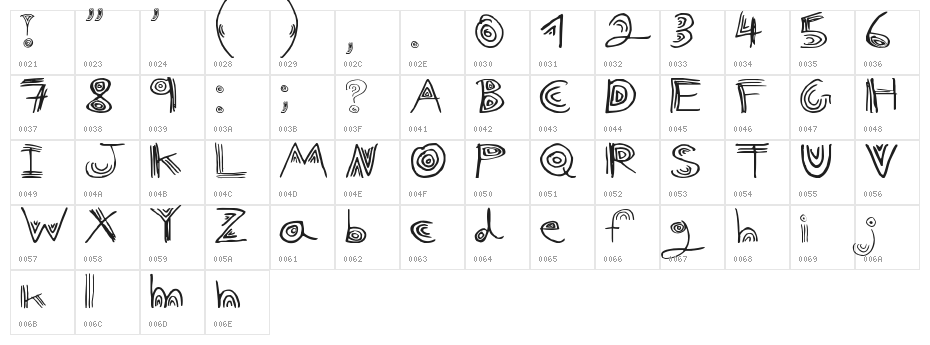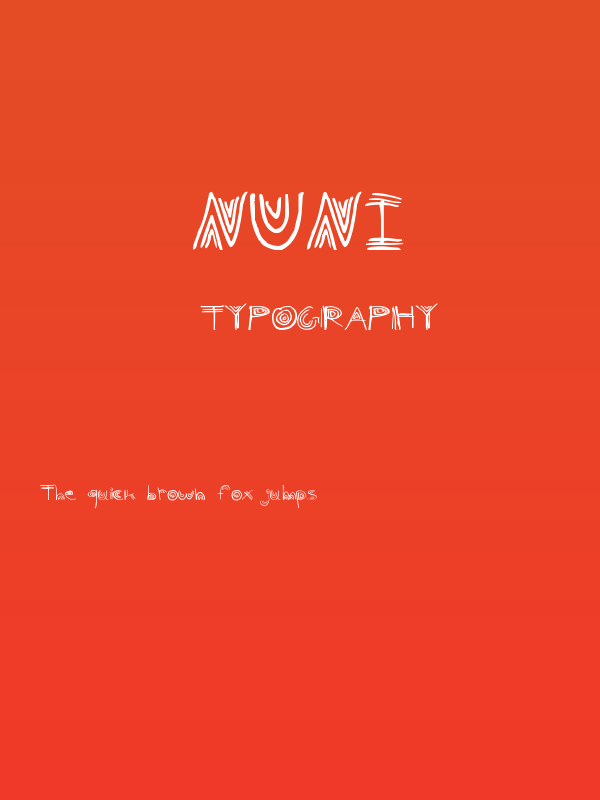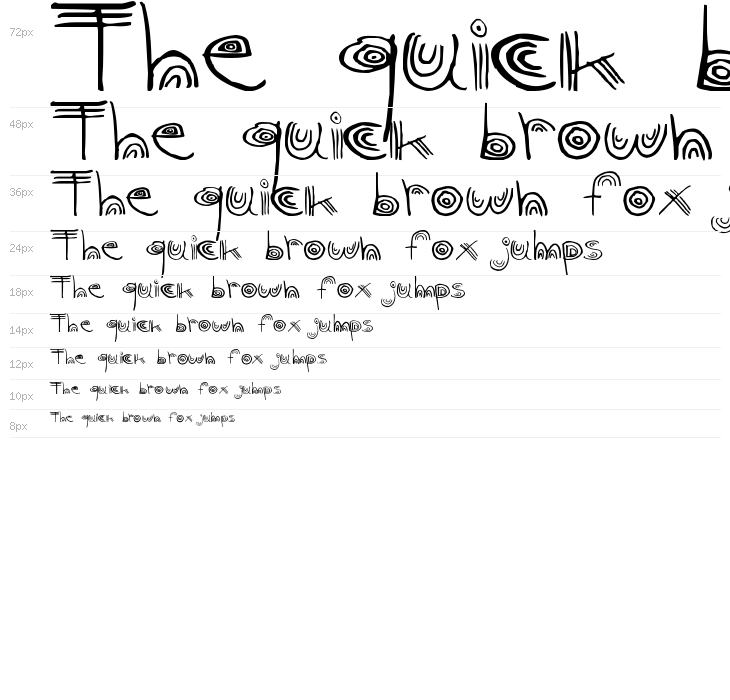
nuni Font
nuni Description
This font features a highly decorative and artistic style, characterized by its unique, hand-drawn appearance. Each letter is crafted with intricate lines and curves, giving it a whimsical and playful feel. The uppercase letters are bold and dynamic, with varying line thicknesses that create a sense of movement and energy. The lowercase letters maintain this artistic flair, with some characters incorporating spiral or eye-like motifs. Numbers and special characters follow the same design principles, ensuring a cohesive look throughout. This font's distinctiveness makes it ideal for creative projects that require a touch of individuality and flair.